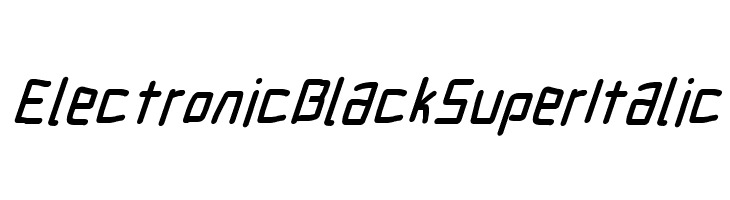
A bold, italicized font with a modern, electronic style and tight spacing.
A bold, italicized font with a futuristic and geometric style.
A bold, italicized font with angular lines and a futuristic style.
A bold, geometric font with a modern, digital aesthetic.
A bold, italicized font with a futuristic and dynamic style.